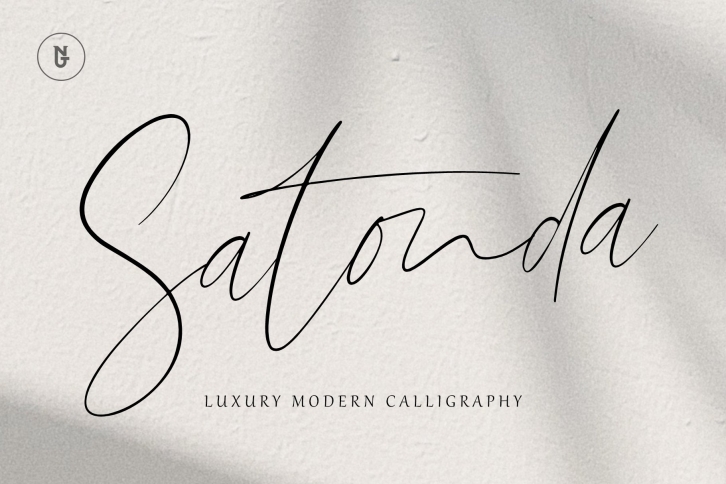
Satonda is a gorgeous font that was realeased on October 14, 2022. The font can be used in many style contexts and design environments. Perfect for invitations, magazines, websites, logos, and more! It was designed by Nest Studio and the file size is 2.57 MB. Thanks for checking out this font!